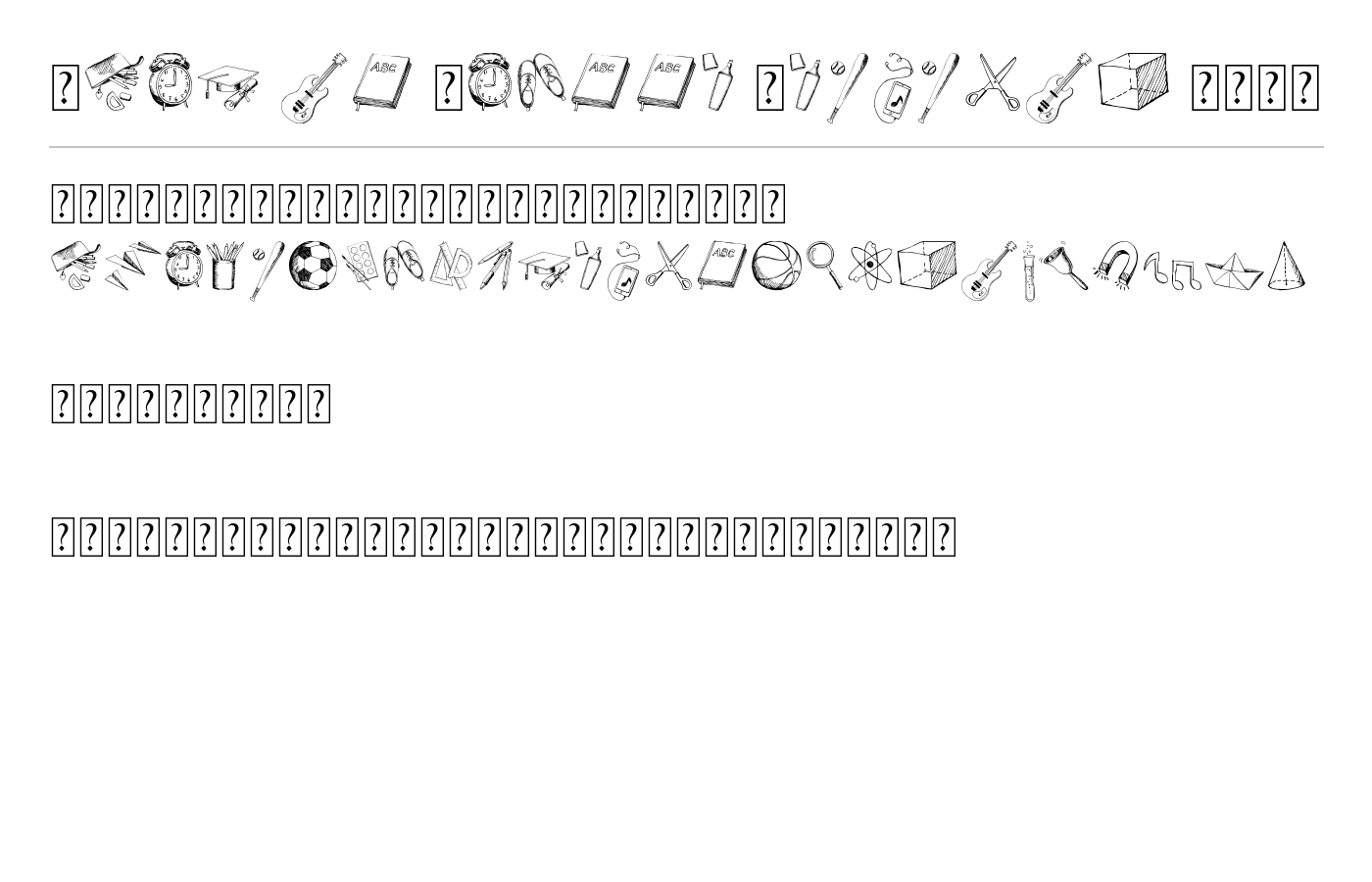
Back to School Elements DEMO is a playful dingbat font featuring hand-drawn illustrations of school-related objects like books, clocks, sports equipment, and musical instruments. Its casual, sketchy style adds a fun, youthful touch, making it perfect for educational materials, children's projects, and creative designs that want to convey learning, creativity, and playfulness. This font works best for decorative use in headlines, posters, or invitations where a lively and approachable vibe is desired.
Back to School Elements DEMO Font
About Back to School Elements DEMO Font